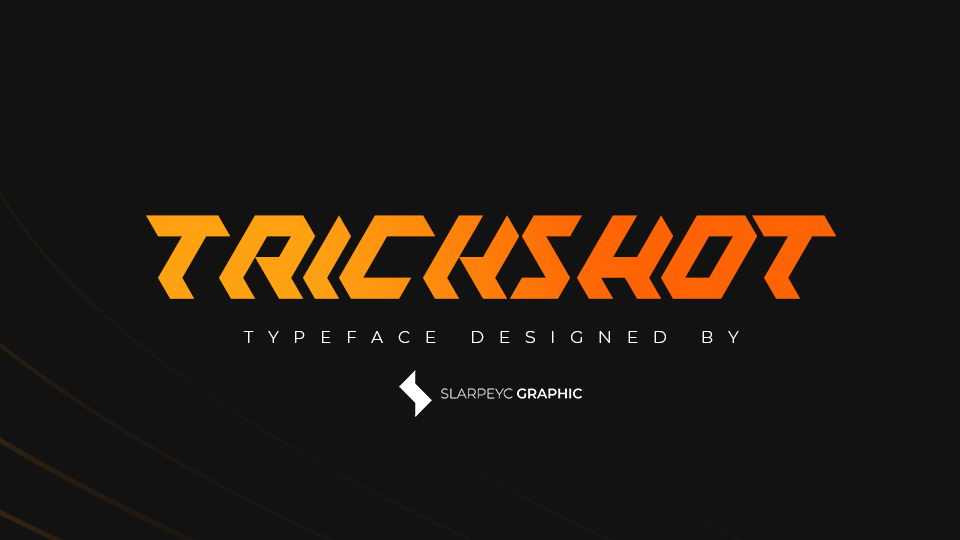
Download Trickshot font, a bold and sharp display typeface. The entire font was made using simple triangles. Trickshot font works best for posters and headlines and short messages.
Designer: Slarpeyc Graphic